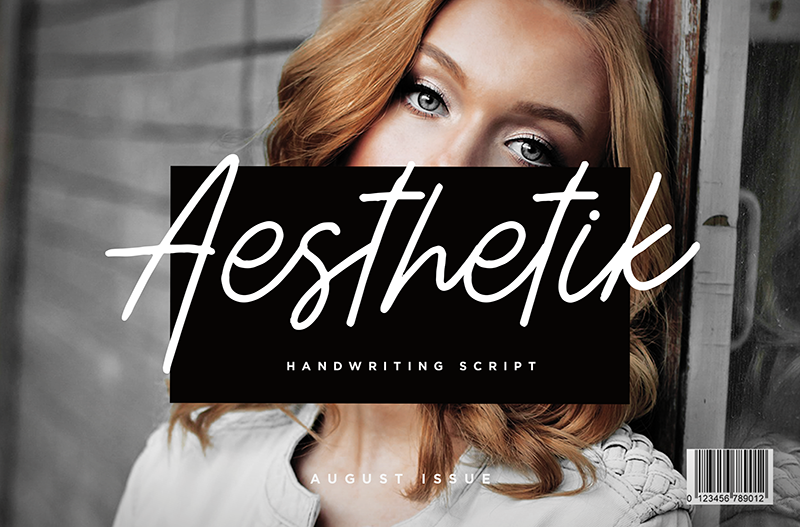
Preview and download Aesthetik Script Font. Created by Just Font You in Script Handwritten styles with Demo license.
By installing or using this demo version you agree to use it as PERSONAL USE ONLY and requires a license for commercial use! --- You can grab the license here : https://justfontyou.com/ https://justfontyou.com/shop/fonts/aesthetik-handwriting-font/ Or from the other store below : https://creativemarket.com/irwanwismoyo http://www.myfonts.com/foundry/Just_Font_You/ --- A handwriting font with monoline style. Aiming the easy usage for any kind of profession, it didn't need any special skill to use this font. So i can say that it will perfectly fit for any of your personal or commercial branding projects, or just an auto-chic for your stuff. That's what Aesthetik - Handwriting Font born from. |